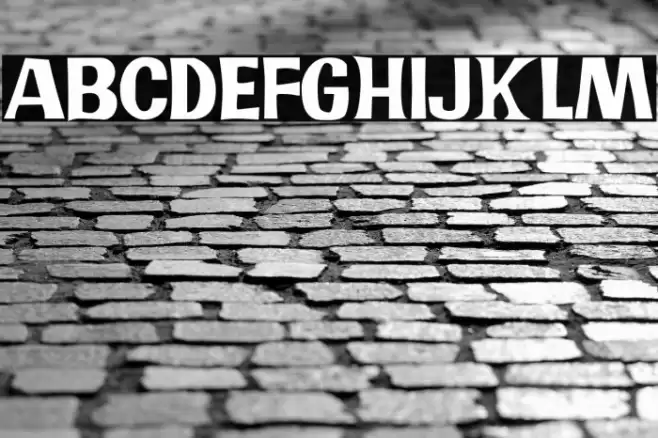
JMHPR-Regular Font
JMHPR-Regular Description
This font features a bold and dynamic style with a playful yet structured appearance. The uppercase letters exhibit a strong presence with slightly exaggerated serifs and varying stroke widths, creating a sense of movement and energy. The lowercase letters maintain a consistent style, with rounded edges and a friendly demeanor. The numerals are bold and easily readable, complementing the overall design. Special characters are uniquely styled, adding to the font's distinctive character. This font is ideal for projects that require a bold statement and a touch of creativity.
A bold, dynamic font with playful serifs and a strong presence from Comic fonts.